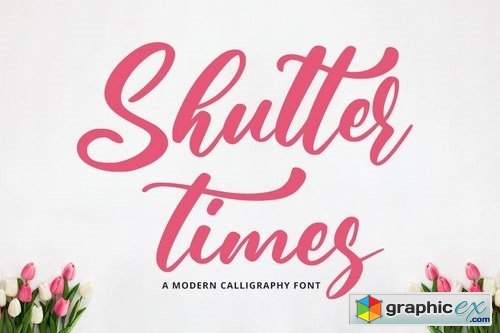
Shutter Times - Elegant Font
Shutter Times is a delicate and elegant handwritten font. Its distinct and well rounded letters make this font a masterpiece. Fall in love with its incredibly versatile style and use it to create spectacular designs!